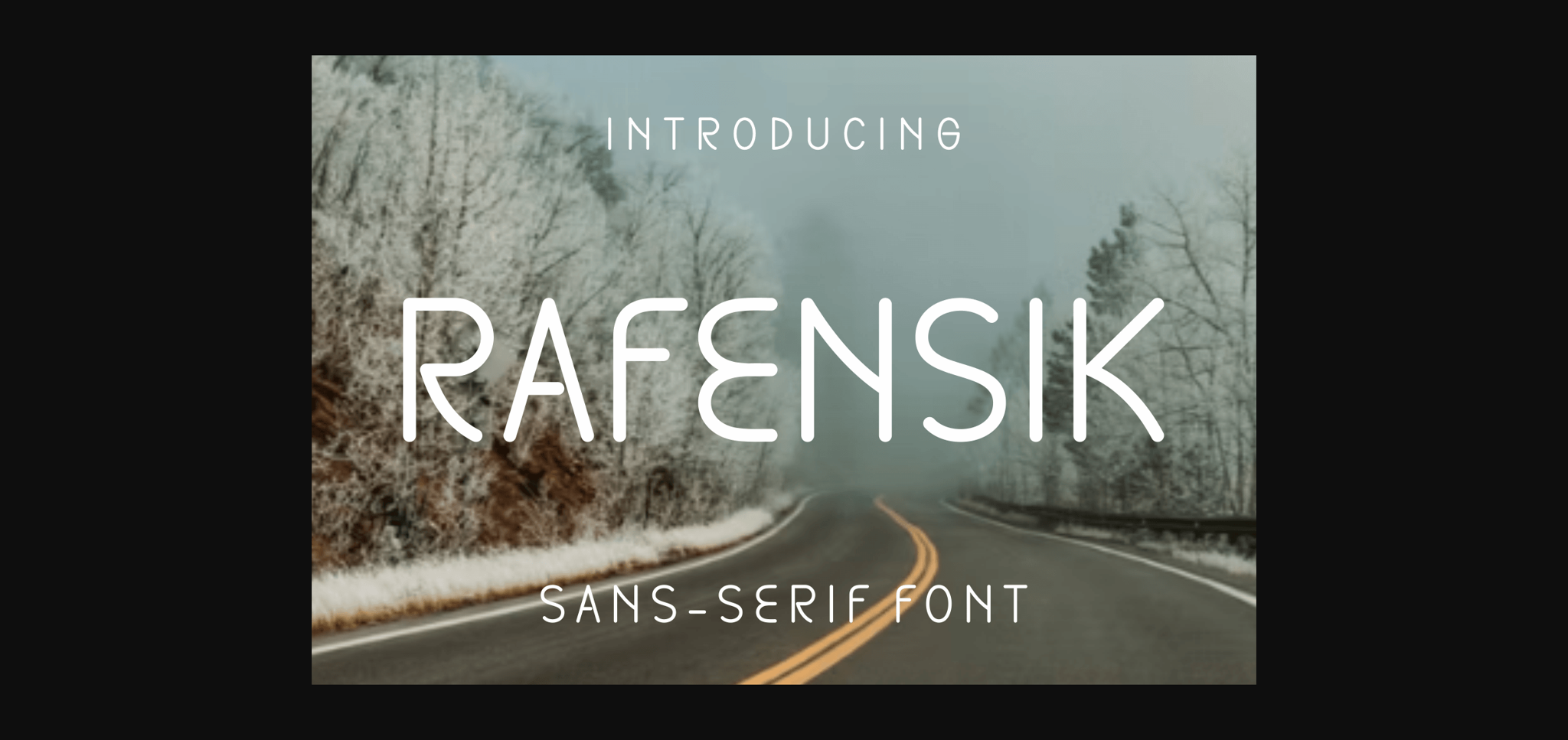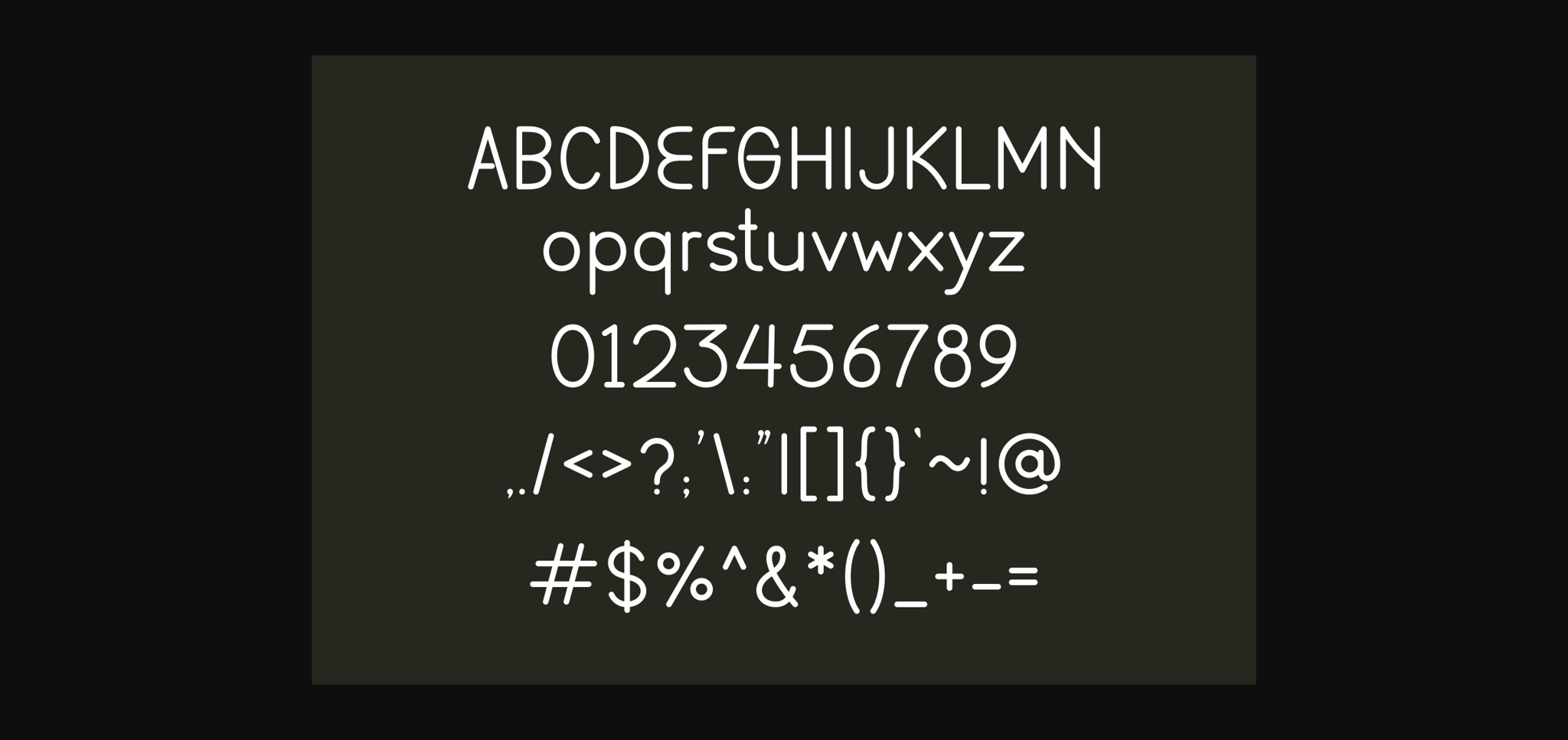
Rafensik Font
About Rafensik Font
Rafensik is a cool and trendy sans serif font. No matter the topic, this font will be a great addition to your font collection as it has the potential to elevate any creation.